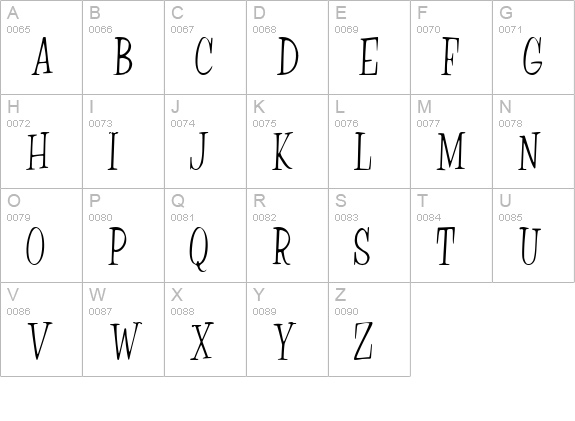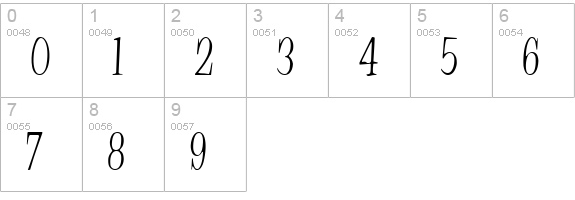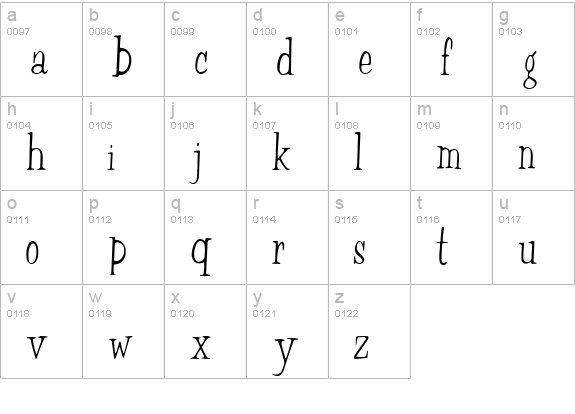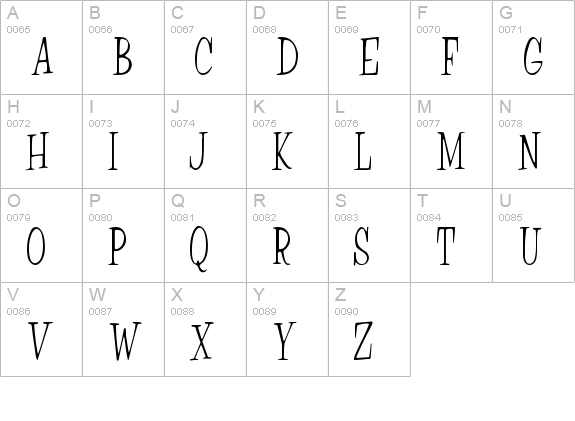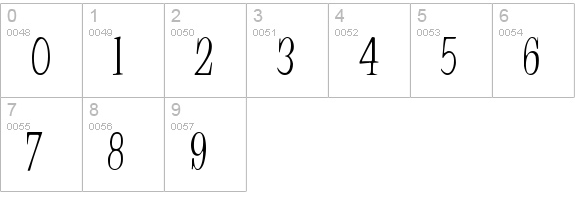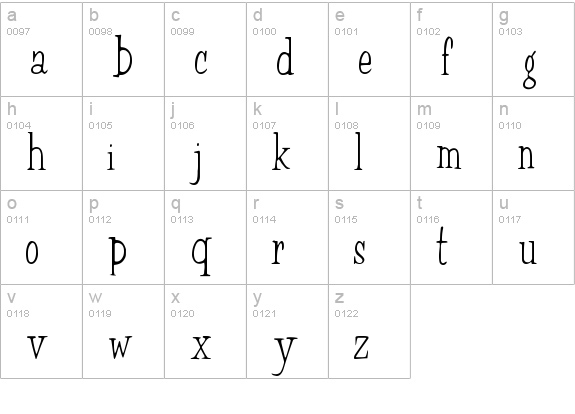
Countryside Normal Font Details
Countryside Normal is the standard, neutral variant in the Countryside typeface family \xE2\x80\x94 well suited to general body text, paragraphs, and standard typographic work.
Countryside Normal font is a charming and versatile typeface that evokes a sense of rustic charm and simplicity. With its clean lines and classic appeal, this font is perfect for a wide range of design projects, from invitations to branding to signage. The Countryside Normal font is a timeless choice that will add a touch of warmth and authenticity to your creations. Whether you're working on a cozy cottage-inspired design or a whimsical country-themed project, this font is sure to bring a touch of nostalgia and charm. Best of all, Countryside Normal font is completely free to download at FontsMarket.com. Simply head to the website and start using this delightful font in your designs today. Enjoy the freedom to create with Countryside Normal font and bring a touch of the countryside to your projects.